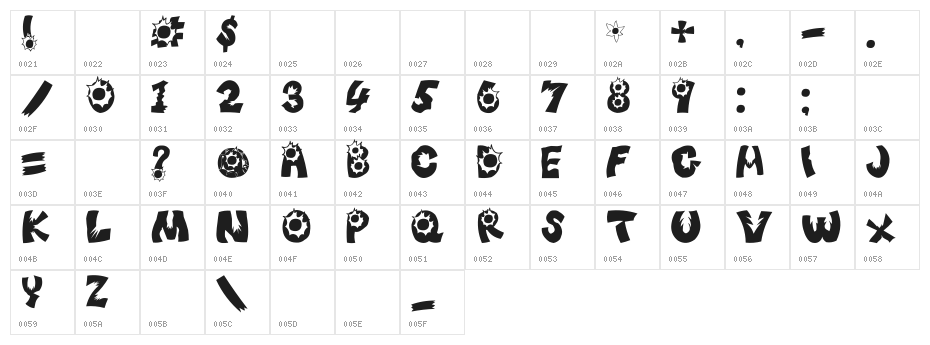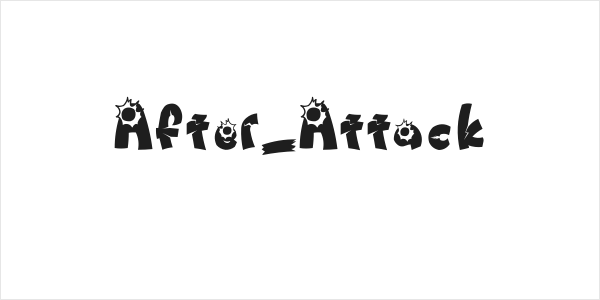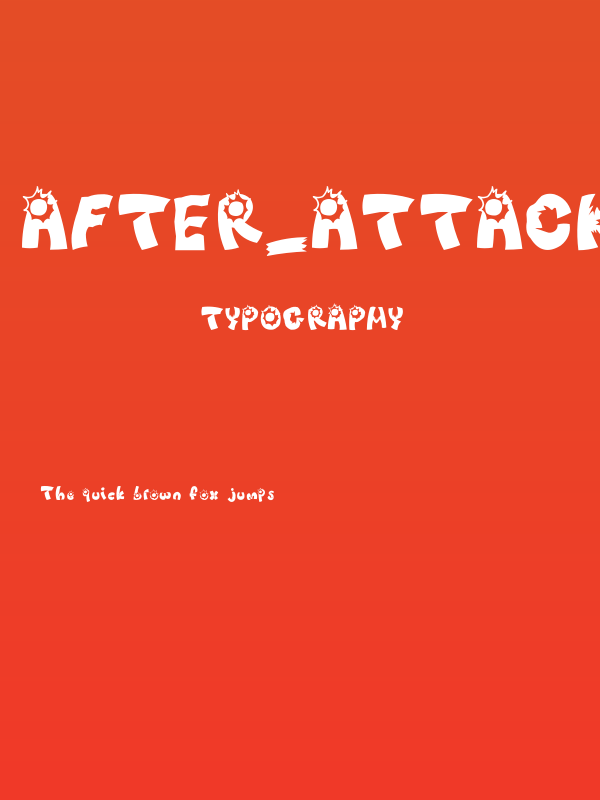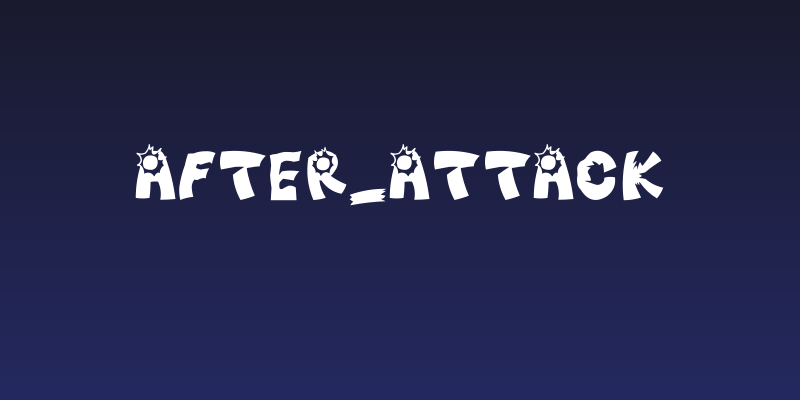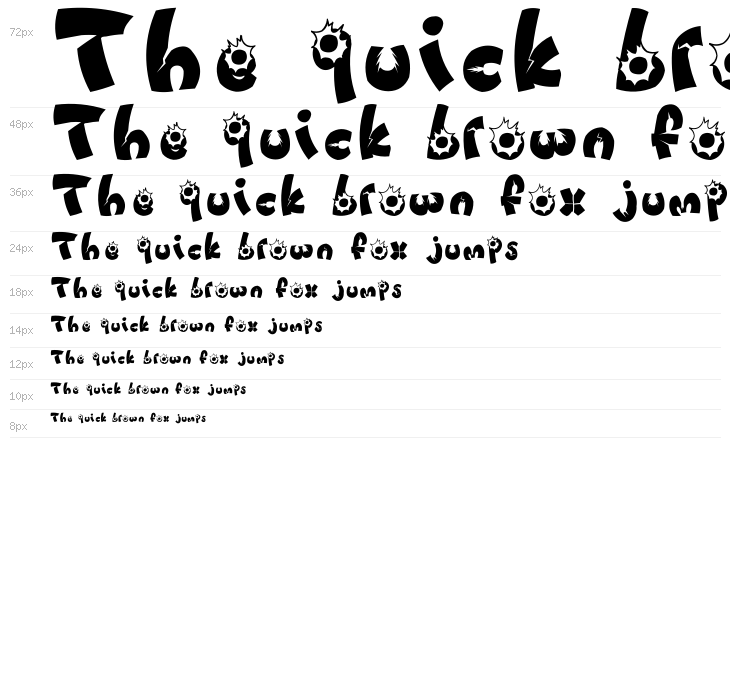
After_Attack Font
After_Attack Description
This font features a bold and dynamic style with a unique, distressed appearance. Each character appears as if it has been impacted or shattered, giving it a rugged and edgy look. The design includes irregular edges and varying stroke thicknesses, adding to its chaotic and energetic feel. The uppercase and lowercase letters maintain a consistent theme, with numbers and special characters following suit. This font is highly decorative and stands out with its dramatic and impactful design.
| Proposed Projects | Ideal for projects requiring a dramatic and impactful look, such as movie posters, video game titles, or Halloween-themed designs. |